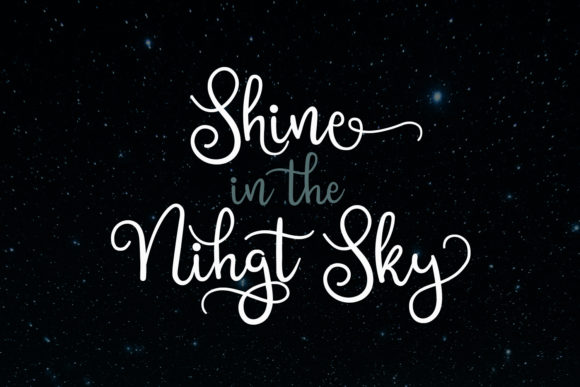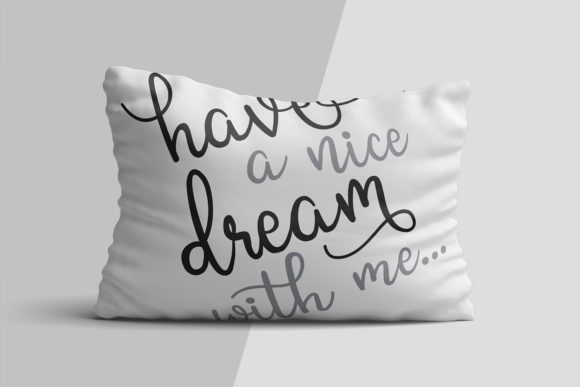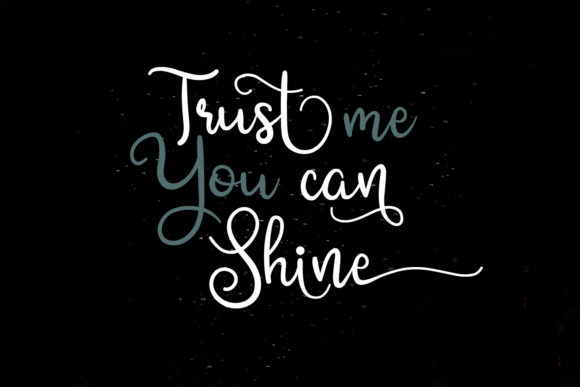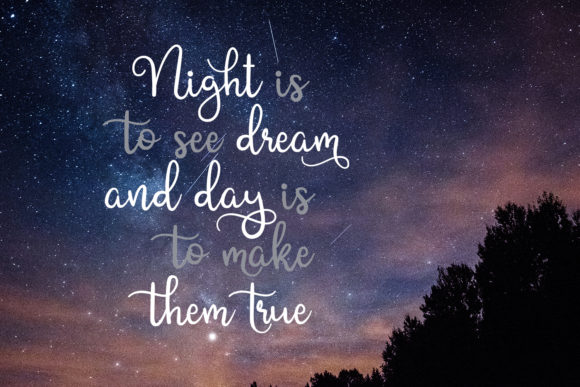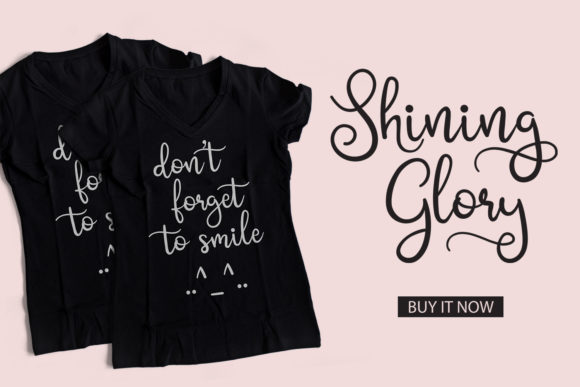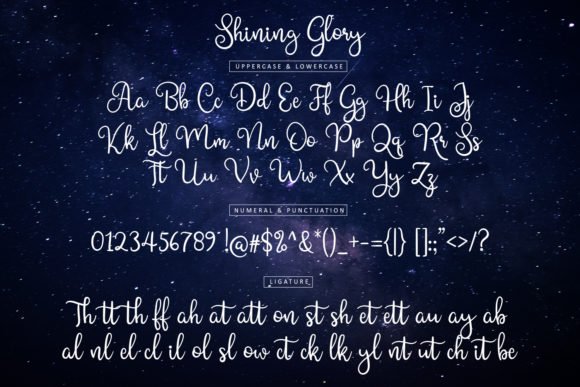
Shining Glory Font
About Shining Glory Font
Shining Glory is a new modern & fresh calligraphy script with natural style. This stunning font will make any design look elegant, natural and stylish.